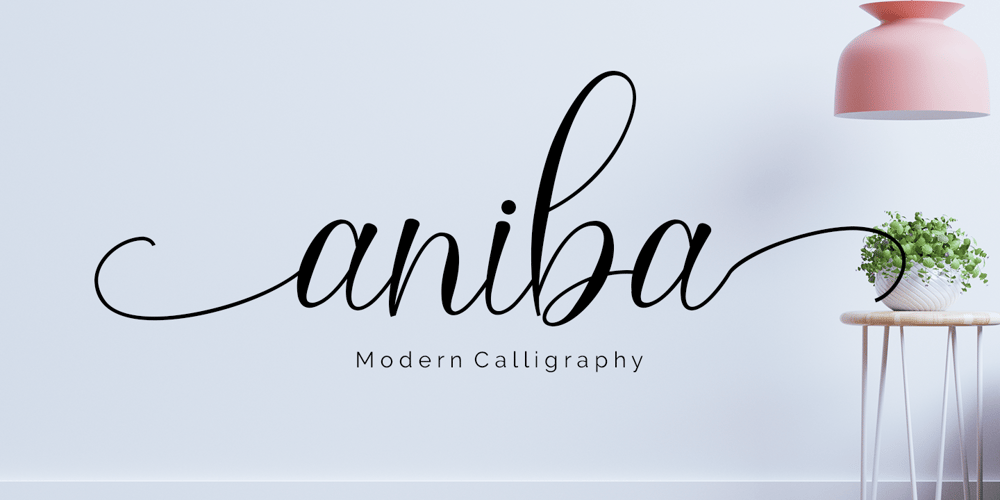
Aniba Font Family was designed by Mohamad Candirah and published by MC Creative. Aniba contains 1 styles and family package options. Aniba is Calligraphy script font which natural movement and elegant for signature style.Aniba is perfect for branding projects, logo, wedding designs, social media posts, advertisements, product packaging, product designs, label, photography, watermark, invitation, stationery and any projects that need handwriting taste.What’s Included : Standard Glyphs Ligature Works on PC & Mac Simple installations Accessible in the Adobe Illustrator, Adobe Photoshop, Adobe InDesign, even work on Microsoft Word. PUA Encoded Characters – Fully accessible without additional design software. Fonts include multilingual support for; ä ö ü Ä Ö Ü ß ¿ ¡